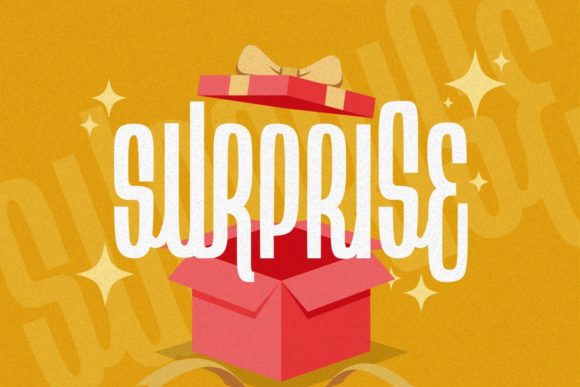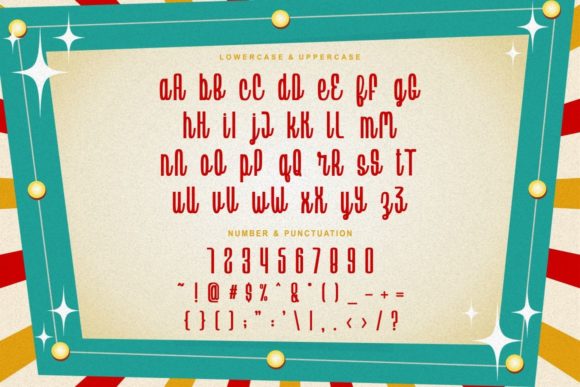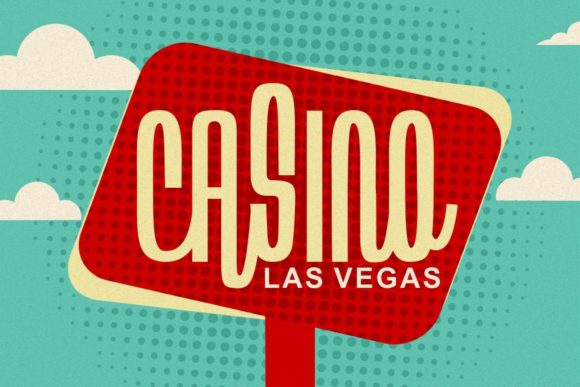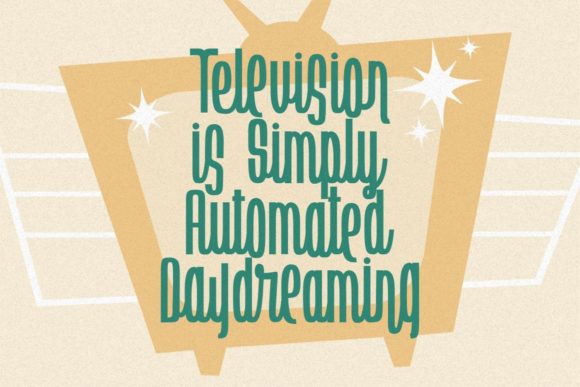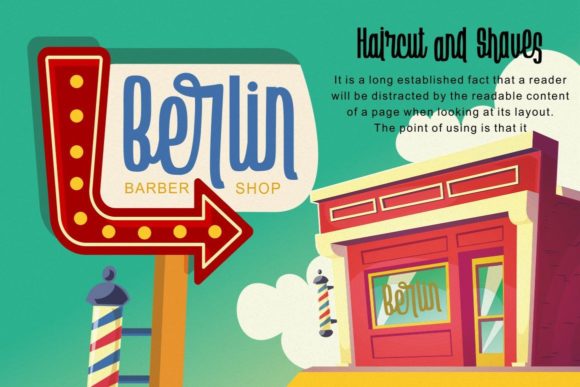
Vintage Reclame Font
About Vintage Reclame Font
Vintage Reclame is a vintage script font inspired by classic billboards/boards. This font is perfect for projects with vintage/retro and classic themes. You can also use this font for logos, branding, greeting cards, invitation cards, advertisements, titles, headlines, book titles, stickers, packaging, quotes, posters, t-shirts/apparel, billboards, and others.